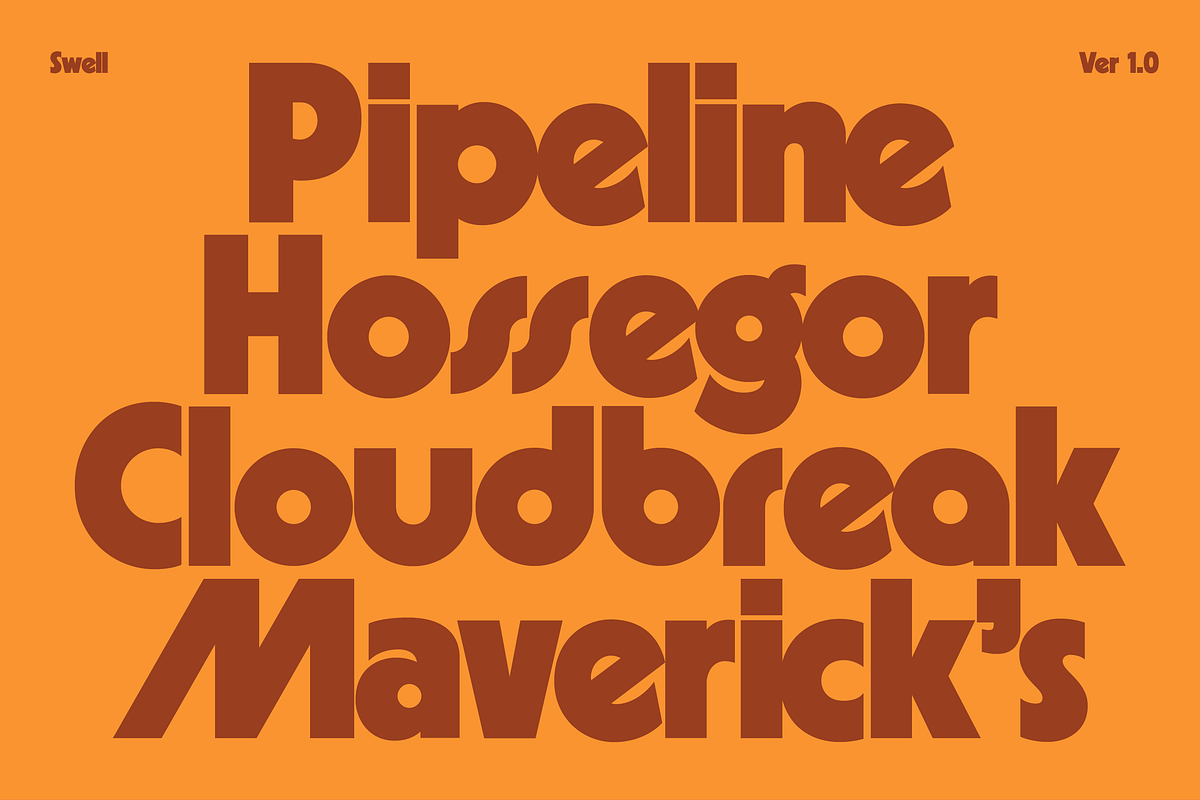
Swell Font
Swell is a bold, geometric sans serif includes uppercase, lowercase, numbers, punctuation, and over 50 alternative glyphs.
It is perfect for contemporary layouts for print, magazines, posters, web, social media, branding logos, or whatever you need to add a little bit of clean sophistication to.
Swell Display Font